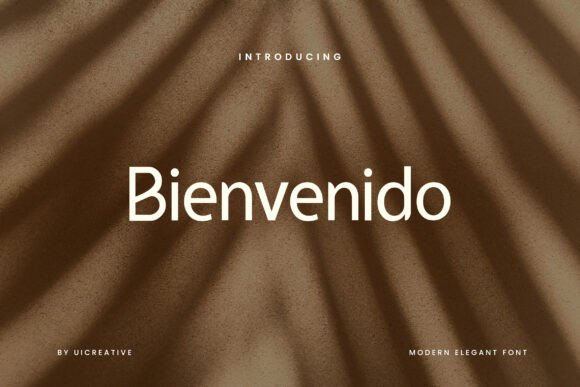
The Ultimate Guide to Bienvenido Font: Elevate Your Designs with Elegance and Boldness
I’ll never forget the moment I stumbled upon Bienvenido Font while working on a wedding invitation project for a client. I had been searching for the perfect font for hours, trying out various combinations, but nothing seemed quite right. The designs were either too bland, too ornate, or just didn’t convey the elegance and sophistication my client was looking for. That was until I saw Bienvenido – an elegant and bold sans serif font that instantly caught my eye. Its versatility and charm won me over, and I knew I had found the perfect fit for my project.
A Personal Review of Bienvenido Font
As a designer, I’m always on the lookout for fonts that can help me create stunning visuals with ease. Bienvenido Font has quickly become one of my go-to fonts, and here’s why:
• ✨ Elegant and sophisticated: Bienvenido’s sleek lines and curves make it perfect for creating high-end designs that exude luxury and refinement.
• ✅ Versatile: This font is incredibly versatile, making it suitable for a wide range of design projects, from wedding invitations and stationery to social media posts and branding materials.
• 💡 Easy to read: Despite its bold and elegant style, Bienvenido remains highly legible, even at smaller font sizes.
While Bienvenido Font is undoubtedly an excellent choice for designers, it’s not without its quirks:
• 🤔 Limited availability of certain characters: Some users have reported that certain special characters or glyphs are not readily available in Bienvenido Font. However, this can be easily resolved by using the font’s OpenType features or accessing the glyphs panel in compatible design software.
• ⚠️ Not ideal for body text: Due to its bold and elegant nature, Bienvenido Font may not be the best choice for lengthy body text. It’s better suited for headings, titles, and short paragraphs.
The Backstory of Bienvenido Font
Bienvenido Font was designed by a team of typographers who aimed to create a font that would be both elegant and bold. Inspired by traditional sans serif fonts, they added a touch of sophistication and refinement to create a truly unique font. The name “Bienvenido” means “welcome” in Spanish, reflecting the font’s warm and inviting personality.
Q: What is Bienvenido Font?
A: Bienvenido Font is an elegant and bold sans serif font that’s perfect for creating stunning designs, such as wedding invitations, stationery, and social media posts.